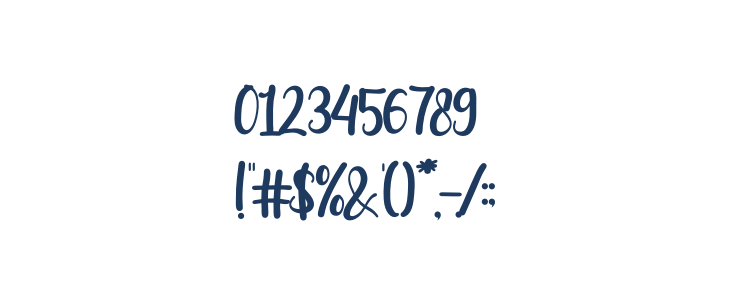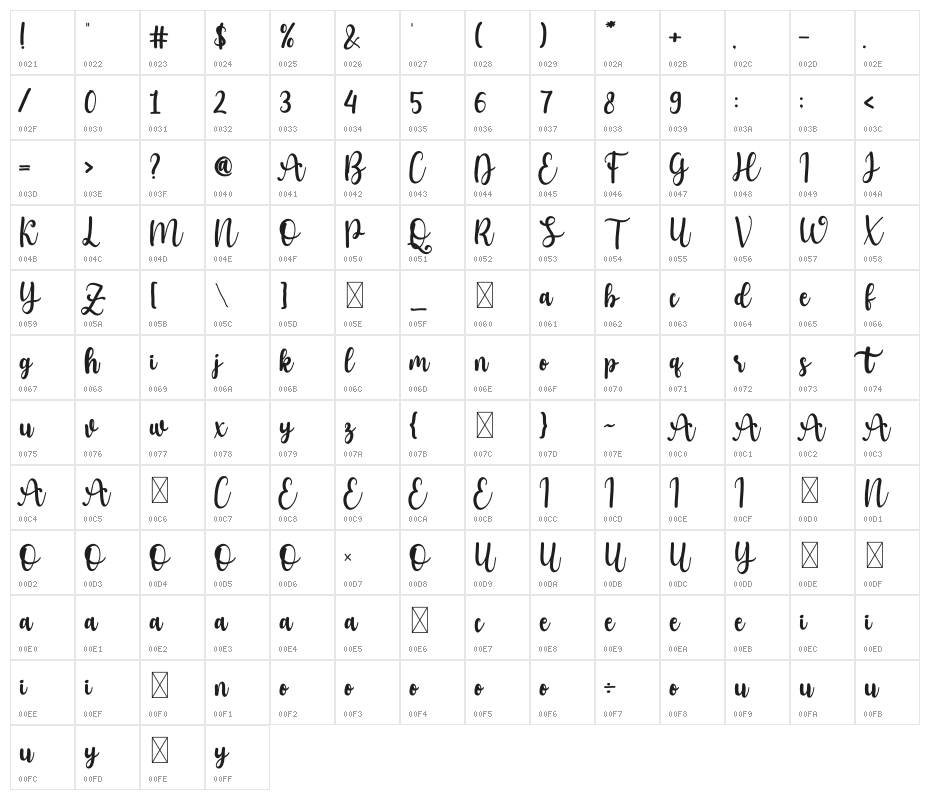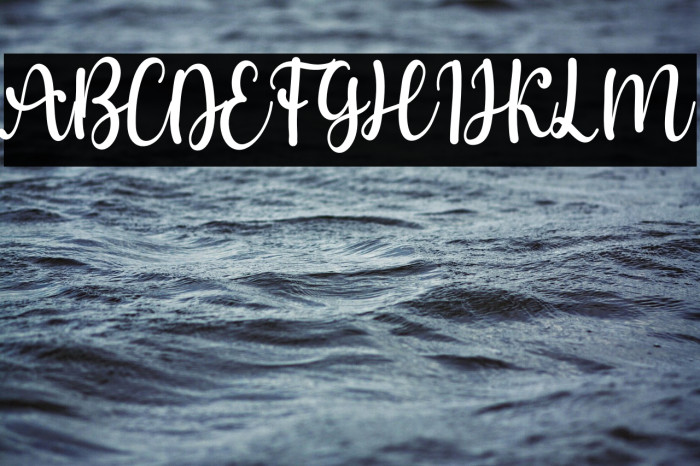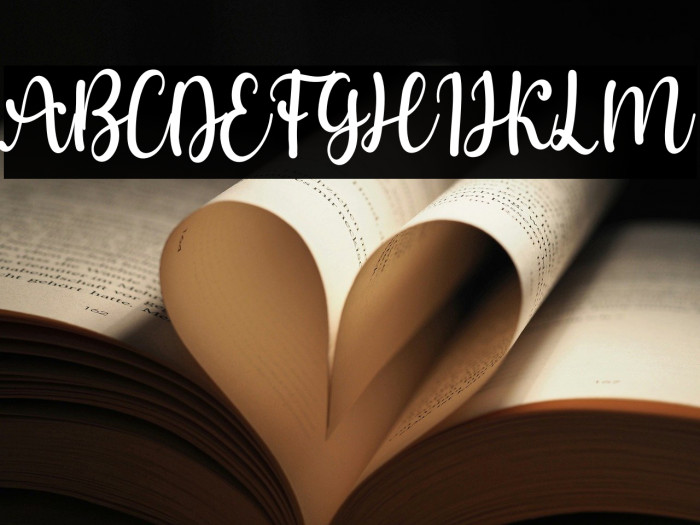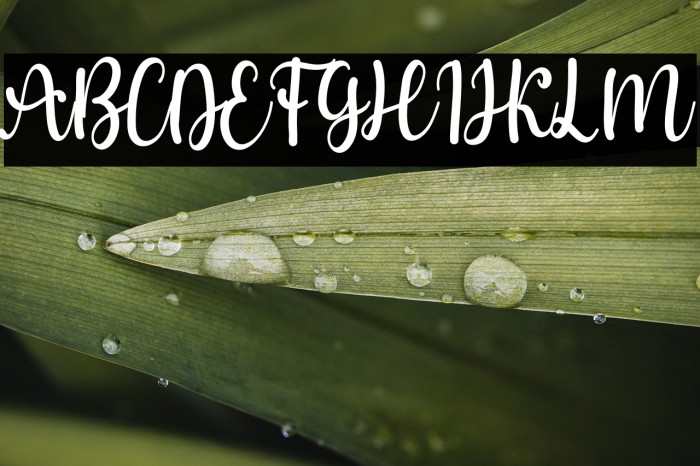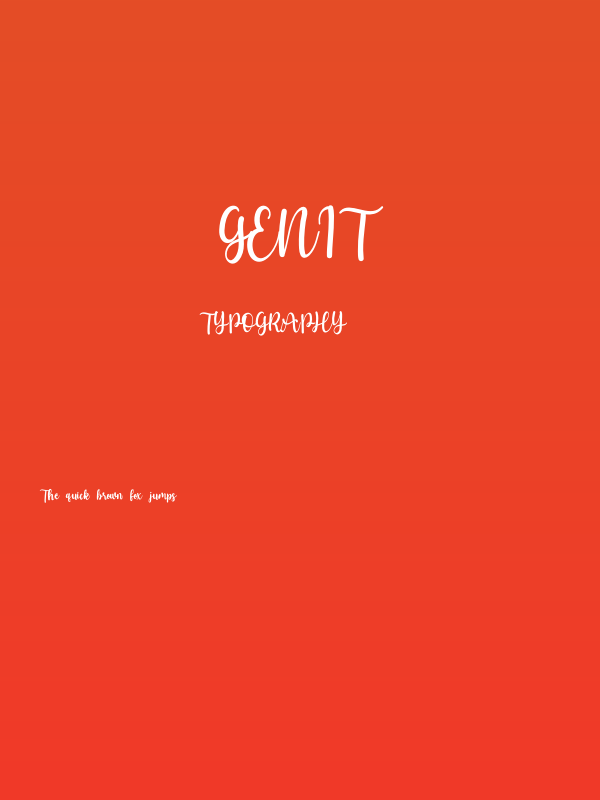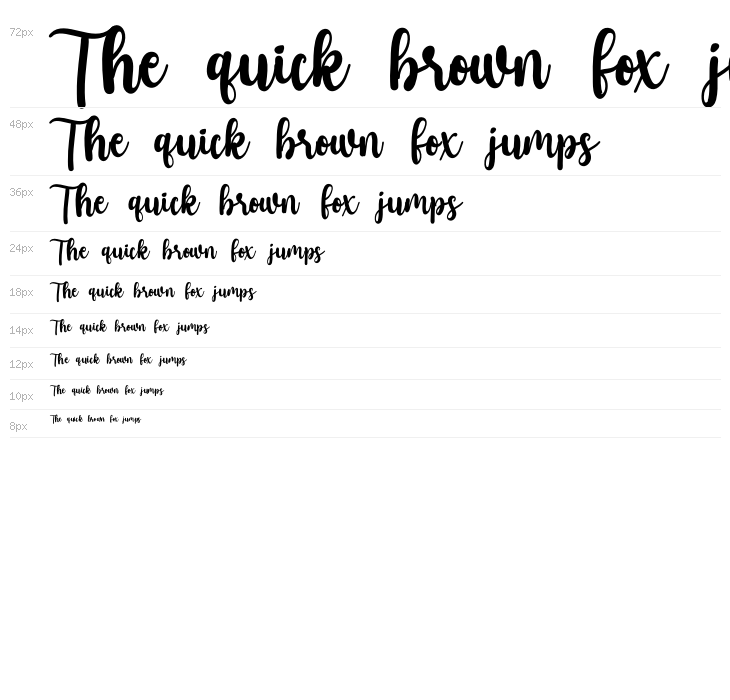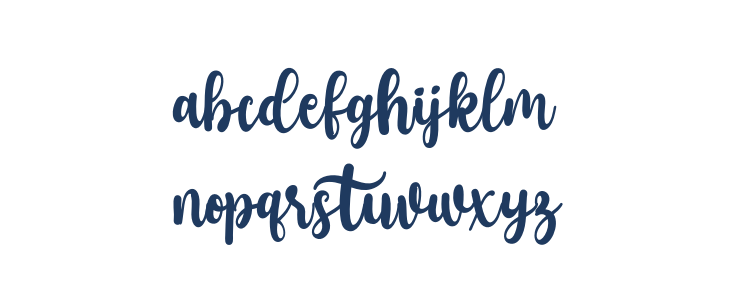
Genit Font
Genit Description
This font features a lively and flowing script style, characterized by its elegant curves and loops. The uppercase letters are bold and expressive, with a playful yet sophisticated flair. The lowercase letters maintain a consistent rhythm, enhancing readability while preserving the font's artistic nature. Numbers and special characters are designed to complement the overall style, making them suitable for various creative applications. The font's dynamic strokes and smooth transitions between characters give it a handwritten feel, perfect for adding a personal touch to any project.